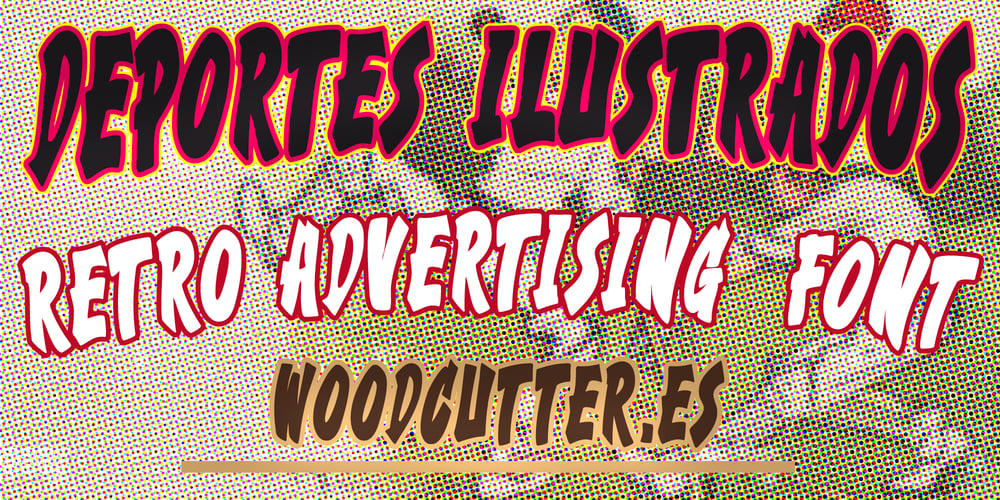
Deportes Ilustrados Font Family was designed by Jordi Manero and published by Woodcutter. Deportes Ilustrados contains 1 styles and family package options. “Deportes Ilustrados” is an uppercase font that captures the essence of 1960s sports advertisements. Its bold and striking letters exude a playful vibe that evokes nostalgia and energy. Perfect for projects aiming to convey dynamism and retro style, this typeface combines simplicity with a vibrant character. Inspired by magazine covers and advertising posters from the era, “Deportes Ilustrados” is ideal for impactful headlines, vintage logos, or designs related to sports and recreational events. Its versatile personality and clear design make it memorable and effective in any context.–Uppercase